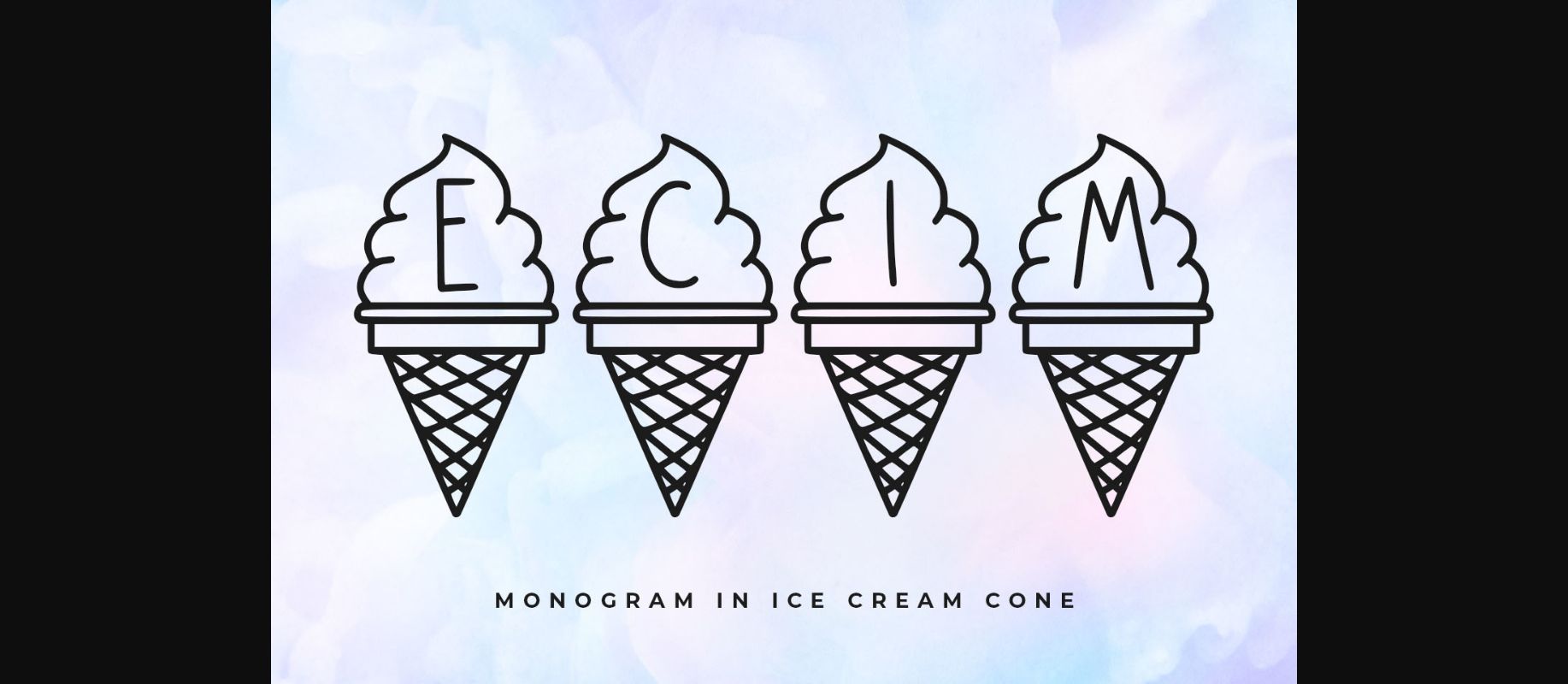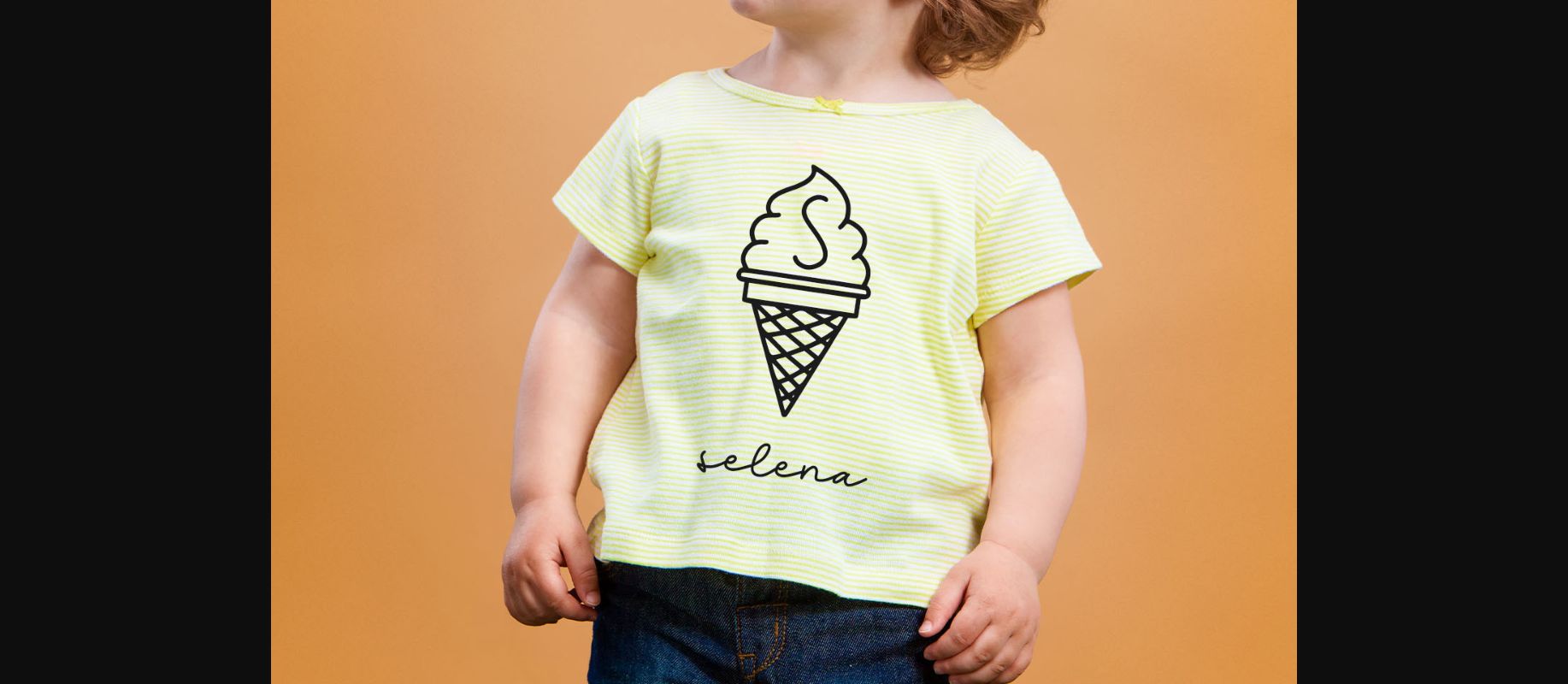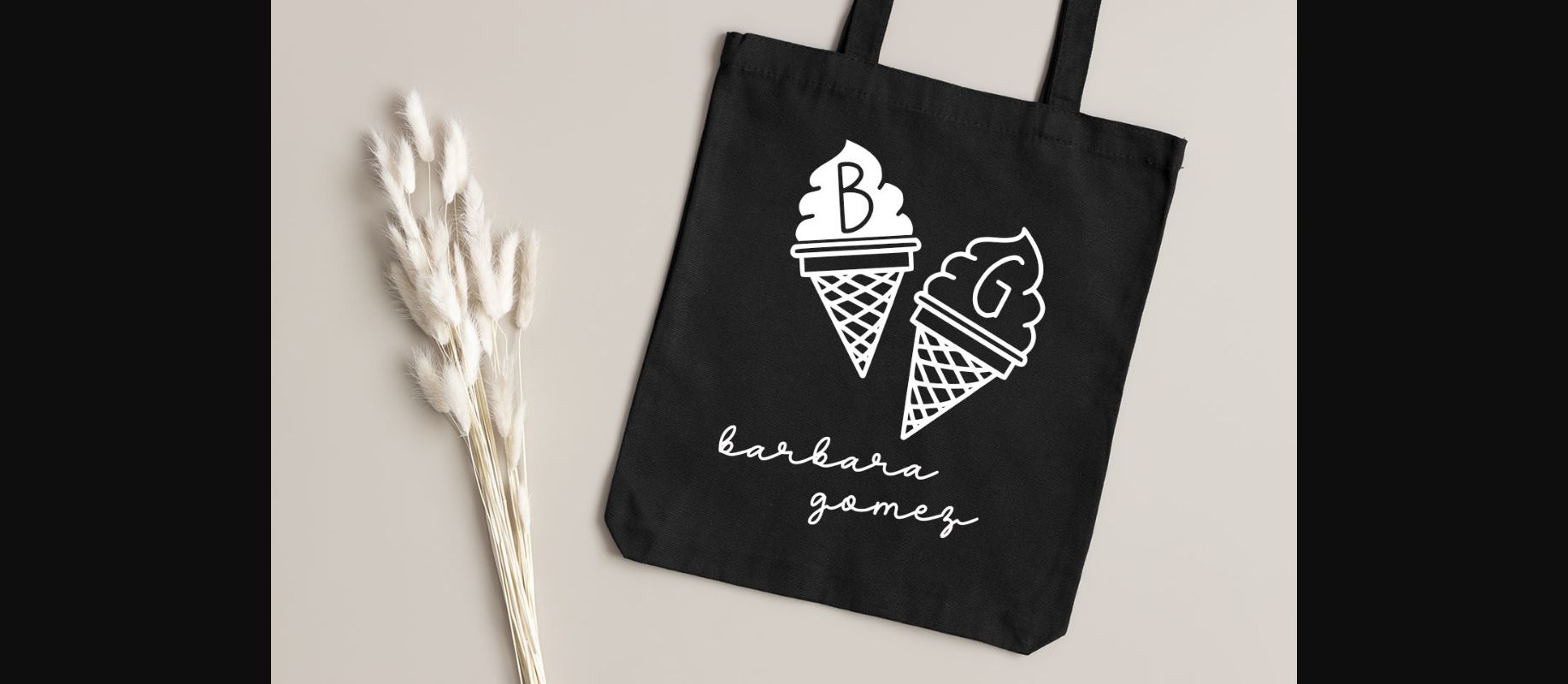
Ecim Monogram Font
About Ecim Monogram Font
ECIM
– monogram font in ice cream cone-
ECIM is so cute font.
It is great for branding, quotes, logos, t-shirt designs, tote bag designs, cards, banners, social media, and more.